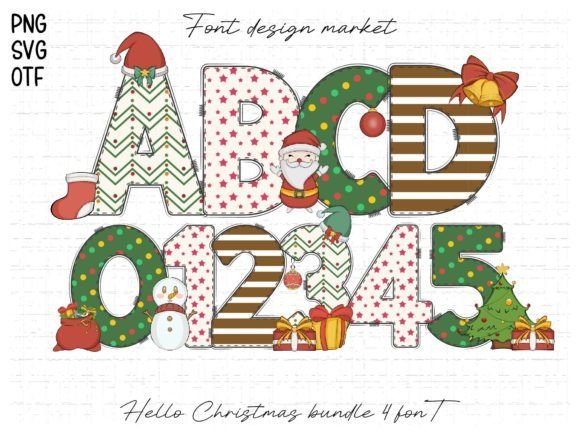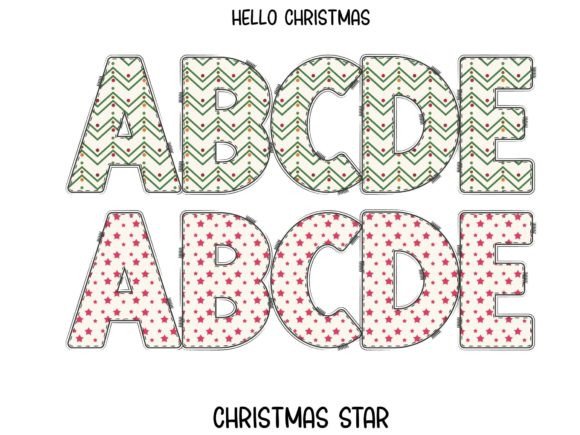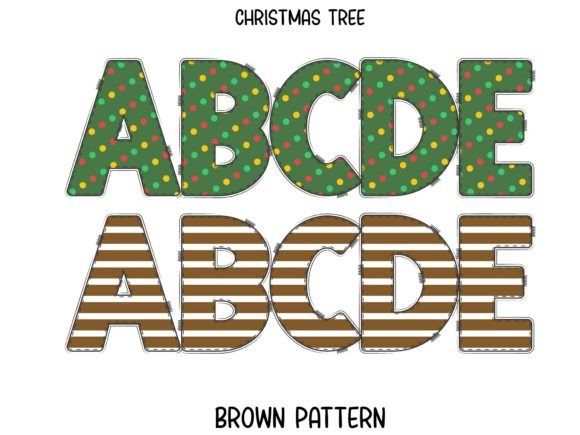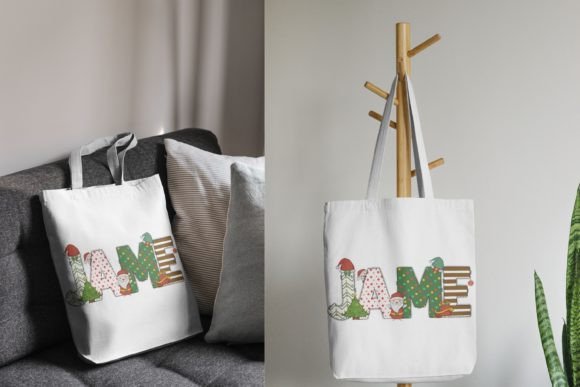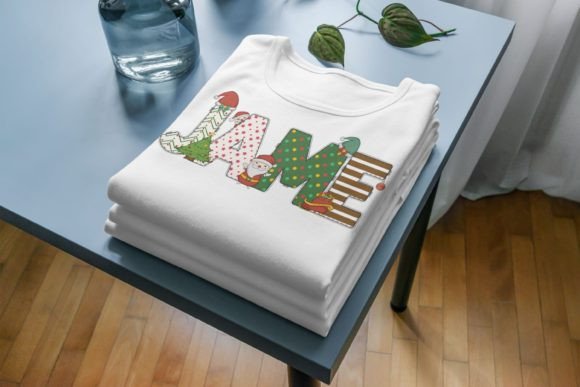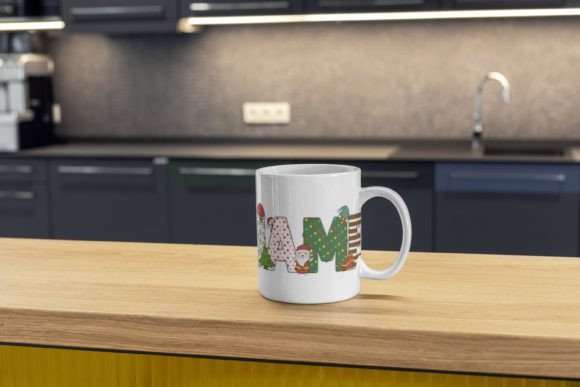
Deck the Halls with a Festive Font
As you’re sipping hot cocoa and browsing through your favorite crafting stores, you can’t help but feel the magic of the holiday season. You stumble upon a festive design project, and your mind starts racing with ideas – ornaments, cards, gift tags, and more. But, what really sets your project apart is the perfect font. That’s where the Hello Christmas Font comes in – a cute and festive color font designed to make your holiday projects shine.
With its adorable characters and vibrant colors, the Hello Christmas Font is a must-have for any designer looking to add a personal touch to their holiday creations. Whether you’re a seasoned crafter or a DIY enthusiast, this font is sure to bring joy and festivity to your projects. Its compatibility with popular design programs like PhotoShop, Illustrator, and Silhouette makes it a valuable addition to any designer’s toolkit.
- Unique Characteristics: Includes festive and holiday-themed characters, ornaments, and decorations
Designer Review: Hello Christmas Font
Overall, I think the Hello Christmas Font is a delightful addition to any holiday-themed design project ✨. The font’s playful, whimsical feel perfectly captures the magic of the season.
The font’s unique character set and creative flair make it stand out from more traditional holiday fonts ✨. The font’s designer has put a lot of thought into the design, and it shows in the attention to detail and the way the font flows on the page.
- Playful, whimsical feel that captures the magic of the season
- Unique character set and creative flair
- Attention to detail in the design
- Flows well on the page
However, I do have a few concerns about the font’s limitations ⚠️. The font is only available in a limited range of weights, which may make it difficult to use in more complex designs. Additionally, the font’s design may not be suitable for all types of holiday projects, such as more formal or traditional designs.
- Only available in a limited range of weights
- May not be suitable for all types of holiday projects
Overall, I think the Hello Christmas Font is a great choice for designers looking to add a playful touch to their holiday projects ✨. While it may have some limitations, the font’s unique design and attention to detail make it a great addition to any design project.
Use “Hello Christmas Font” to create festive and inviting designs for Christmas-themed projects.
Combine “Hello Christmas Font” with other festive graphics and colors to create a cohesive and eye-catching design.
Experiment with different font sizes and colors to add depth and interest to your design.
Common Use Cases for “Hello Christmas Font”
“Hello Christmas Font” is ideal for creating Christmas-themed designs, such as:
Invitations and party flyers
Christmas card designs and greeting cards